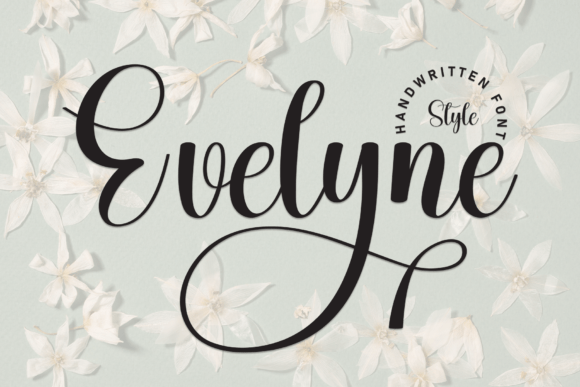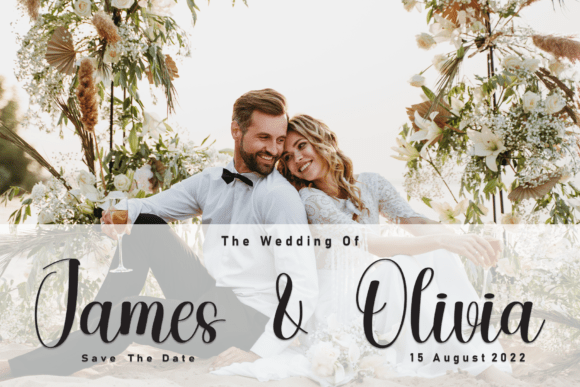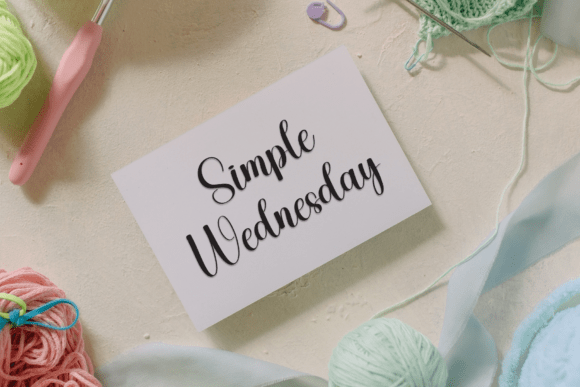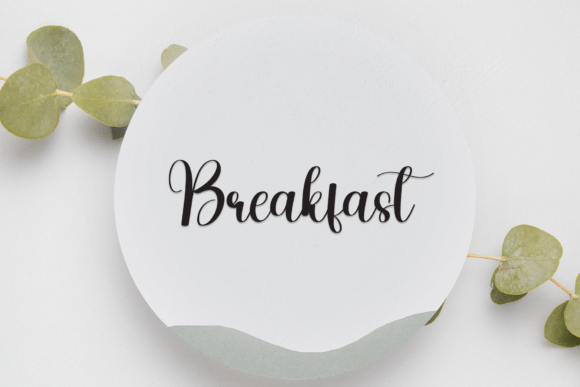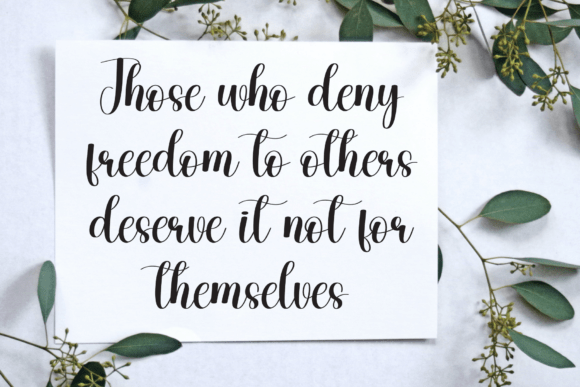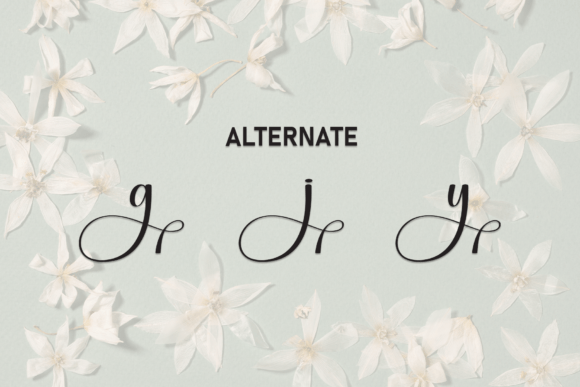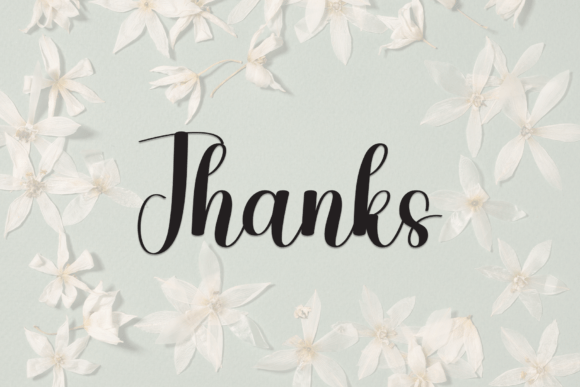
The Perfect Script for Luxury Design
Have you ever stared at a blank canvas, longing to create something truly special? The blank page stares back, waiting for the spark that will ignite your creativity. For designers seeking to elevate their work to new heights, that spark is often found in the perfect font. Enter the Evelyne font, a stunning, handwritten style typeface designed to transport your designs to a world of high-end sophistication.
The Evelyne Font is more than just a pretty face – it’s a powerful tool for designers who want to create bespoke aesthetics that command attention. With its oversized flourishes and dramatic flow, this typeface is perfect for fashion branding, luxury wedding invitations, and photography watermarks. Whether you’re a seasoned pro or just starting out, the Evelyne Font is a valuable addition to your design arsenal, offering a timeless glamour that will leave your clients and audience in awe.
Evelyne Font Key Features
- Unique Characteristics: Evelyne Font features a unique blend of elegance and sophistication, making it perfect for use in high-end branding, luxury packaging, and premium advertising.
Evelyne Font Review
Overall, I’m quite impressed with the Evelyne Font. Here are some of its standout features:
- ✨ Beautiful, elegant design that’s perfect for high-end branding
- ✨ Wide range of weights and styles to choose from, making it highly versatile
- ✨ Supports multiple languages, which is great for global branding
- ⚠️ May not be the best choice for body text, as it can be quite busy and hard to read at small sizes
- ⚠️ Some of the weights may feel a bit inconsistent, which can affect the overall flow of your design
Overall, I’d say the Evelyne Font is a solid choice for any designer looking to add some sophistication to their project. While it may not be perfect, its strengths far outweigh its weaknesses. With a little careful selection of weights and sizes, you can create some truly stunning designs with this font.
Tips for Getting the Most Out of Evelyne Font
Use Evelyne Font for titles and headings to add a touch of elegance to your designs.
Pair Evelyne Font with bold or italic fonts for a striking contrast.
Experiment with different font sizes and styles to create unique and visually appealing designs.
Alternatives to Evelyne Font
Montserrat is a sans-serif font designed by Julieta Ulanovsky. It is a great alternative to Evelyne Font when you need a clean and modern look. Montserrat is more geometric and has a stronger feel to it, making it perfect for digital products and apps.
Comparison to Evelyne Font: Montserrat is more geometric and has a stronger feel to it, whereas Evelyne Font is more elegant and refined.
Open Sans is a sans-serif font designed by Steve Matteson. It is a great alternative to Evelyne Font when you need a friendly and approachable look. Open Sans is more casual and has a softer feel to it, making it perfect for websites and blogs.
Comparison to Evelyne Font: Open Sans is more casual and has a softer feel to it, whereas Evelyne Font is more elegant and refined.
Lato is a sans-serif font designed by Łukasz Dziedzic. It is a great alternative to Evelyne Font when you need a clean and sophisticated look. Lato is more elegant and has a stronger feel to it, making it perfect for corporate websites and business cards.
Comparison to Evelyne Font: Lato is more elegant and has a stronger feel to it, whereas Evelyne Font is more refined and delicate.
Avenir is a sans-serif font designed by Adrian Frutiger. It is a great alternative to Evelyne Font when you need a modern and sophisticated look. Avenir is more geometric and has a stronger feel to it, making it perfect for luxury brands and high-end products.